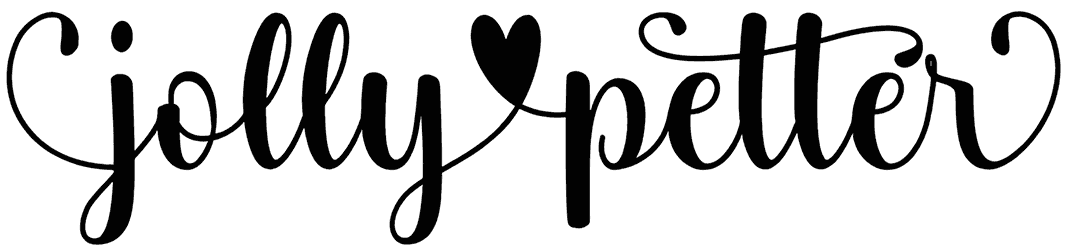
Jollypetter Font
It can be tough to find the appropriate font for a special occasion’s designs like Valentine’s Day, but we’d like to introduce you to Jollypetter, a romantic font with a flowing shape that works well for greeting cards, love letters, posters, etc. Simply browse our digital collection to find similar items.